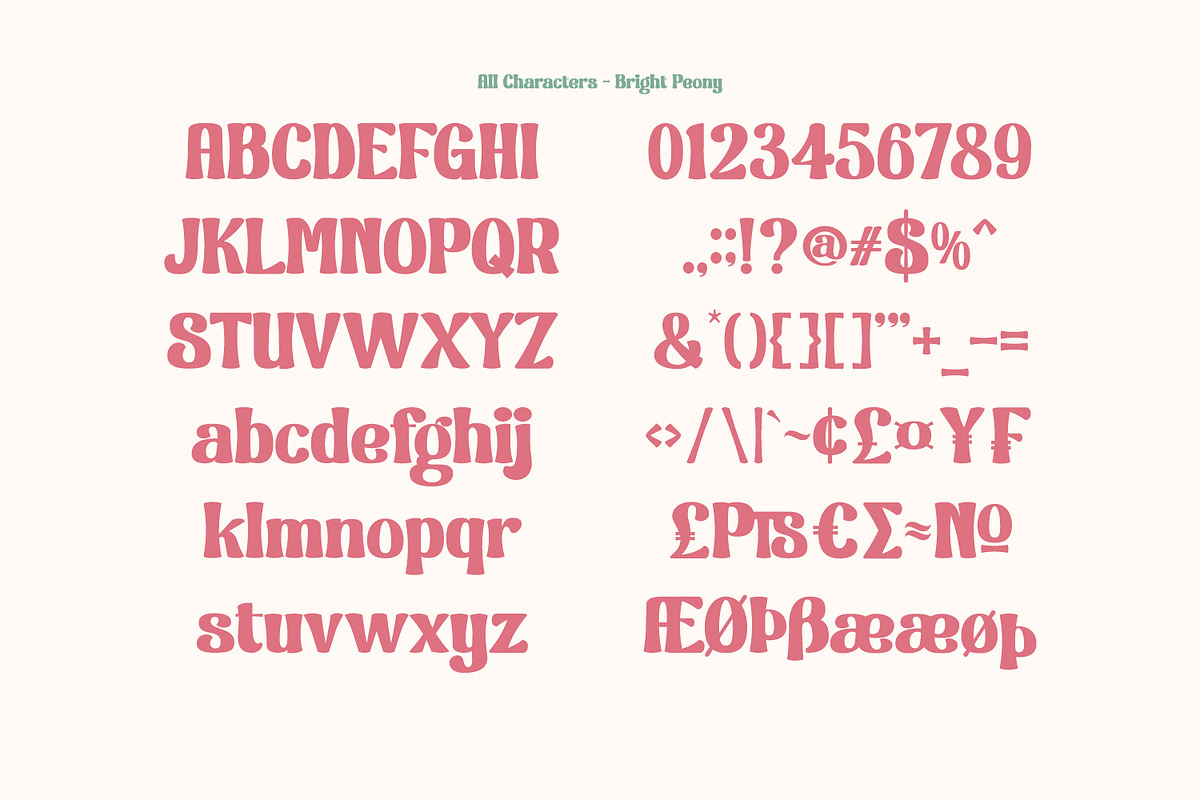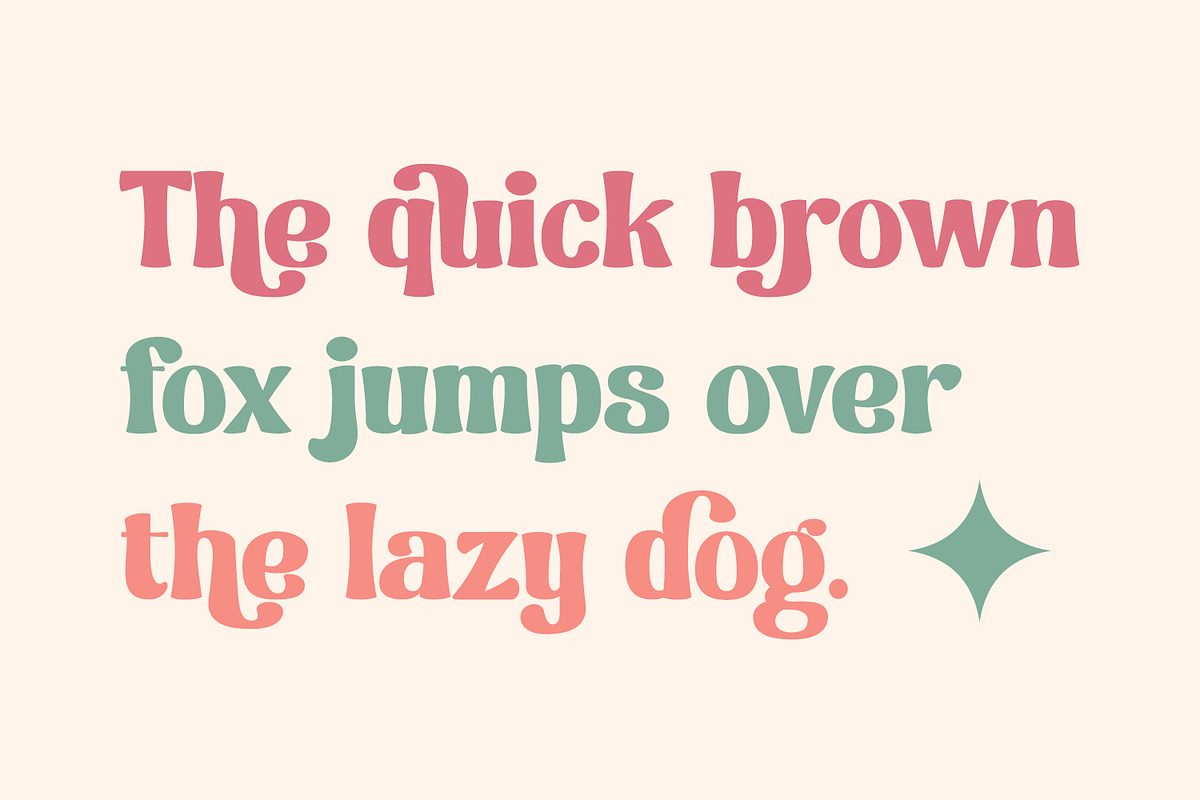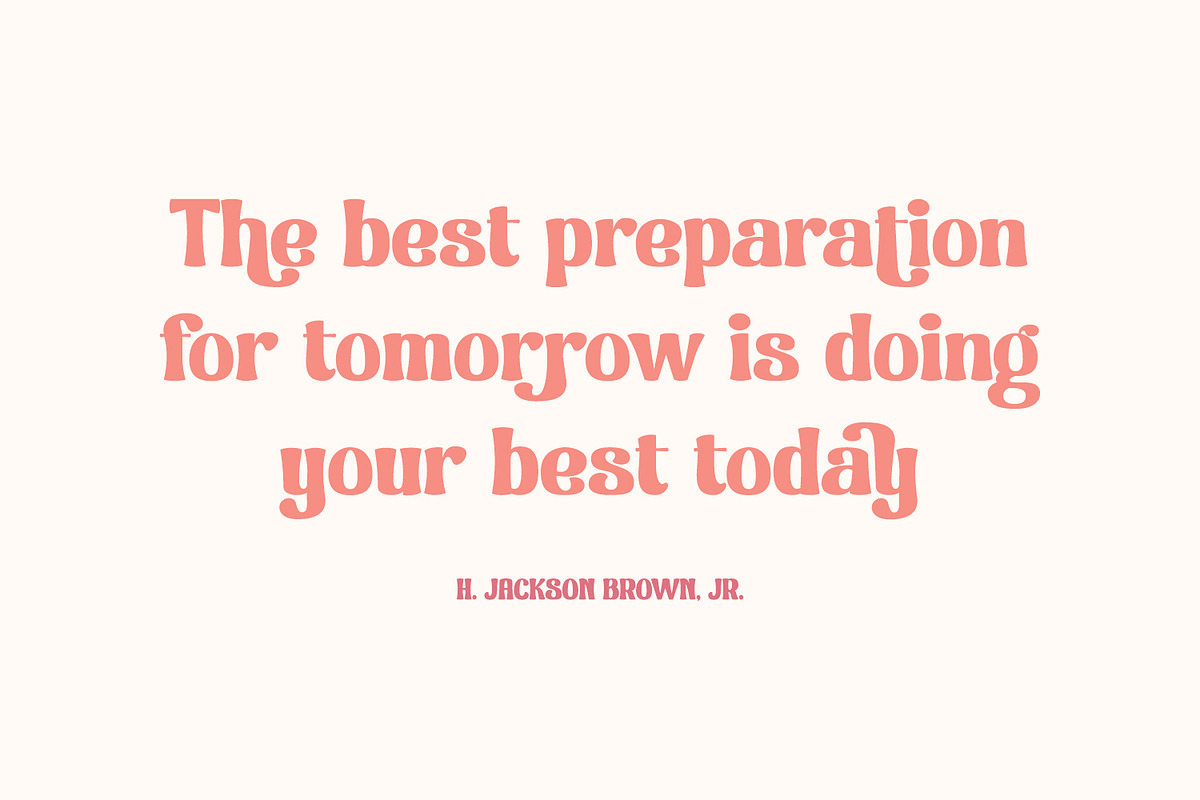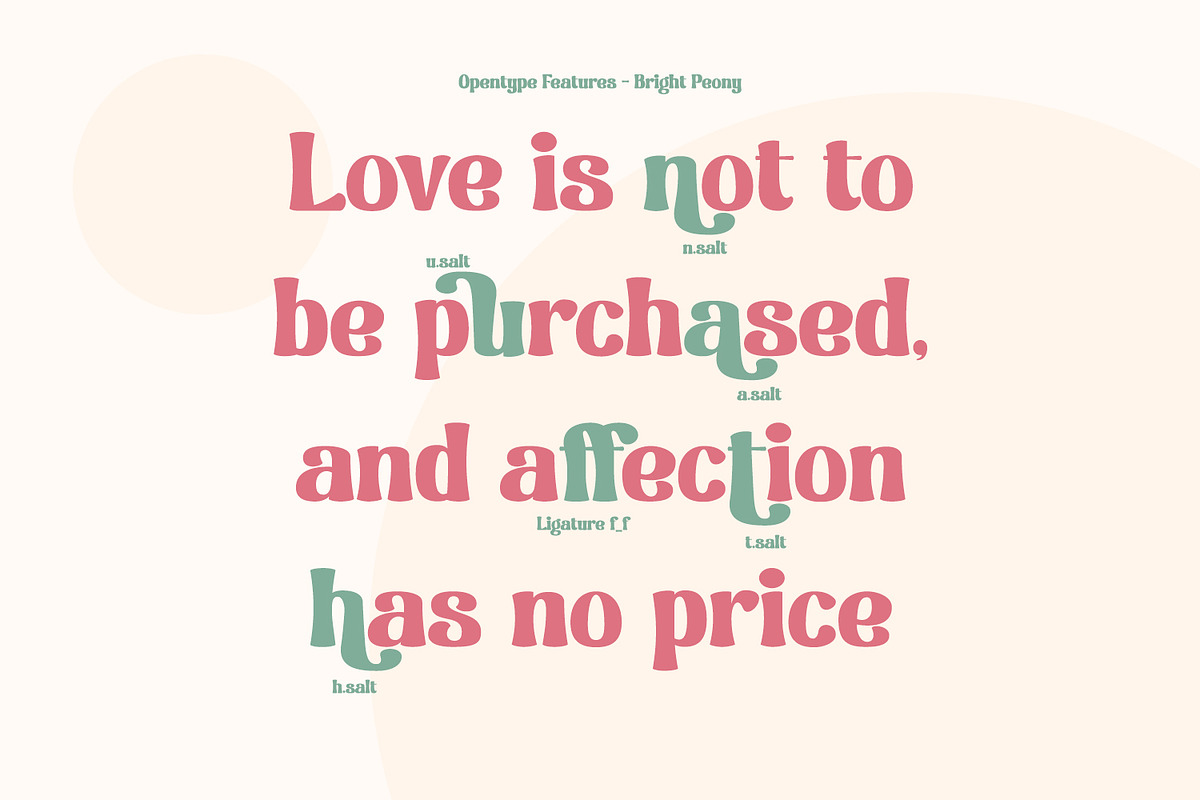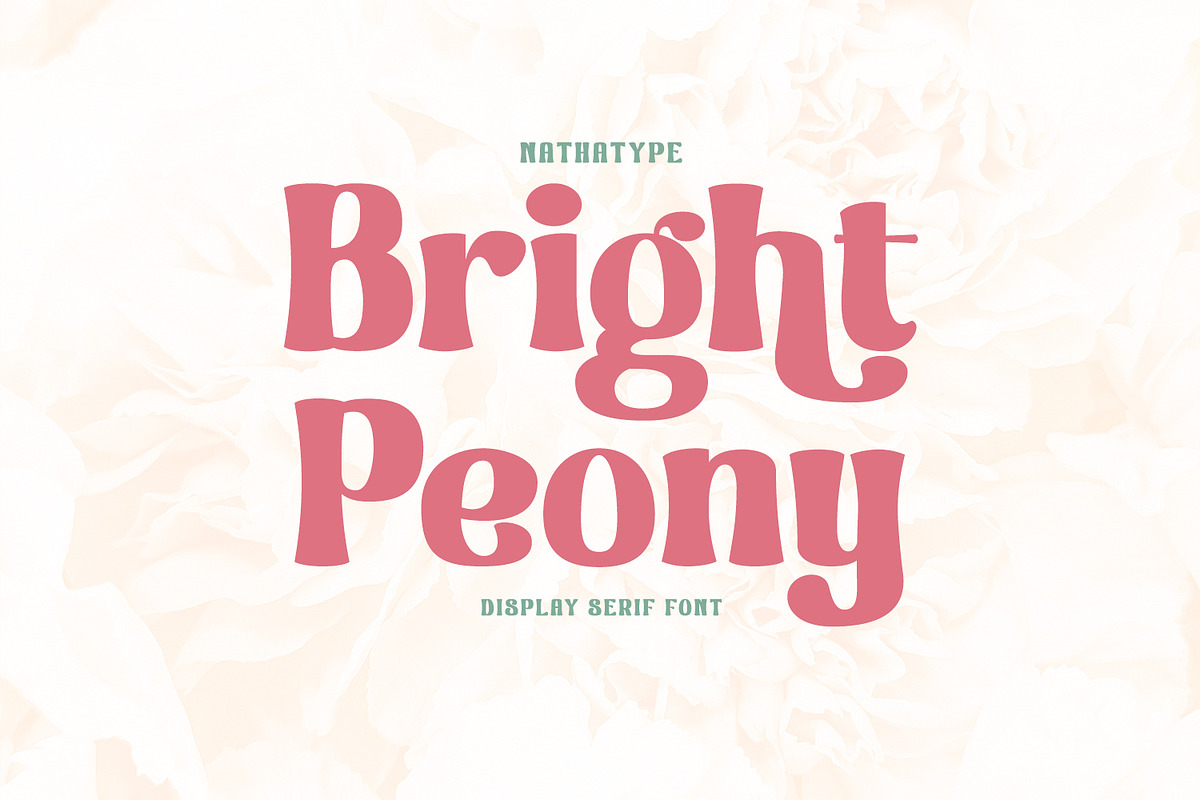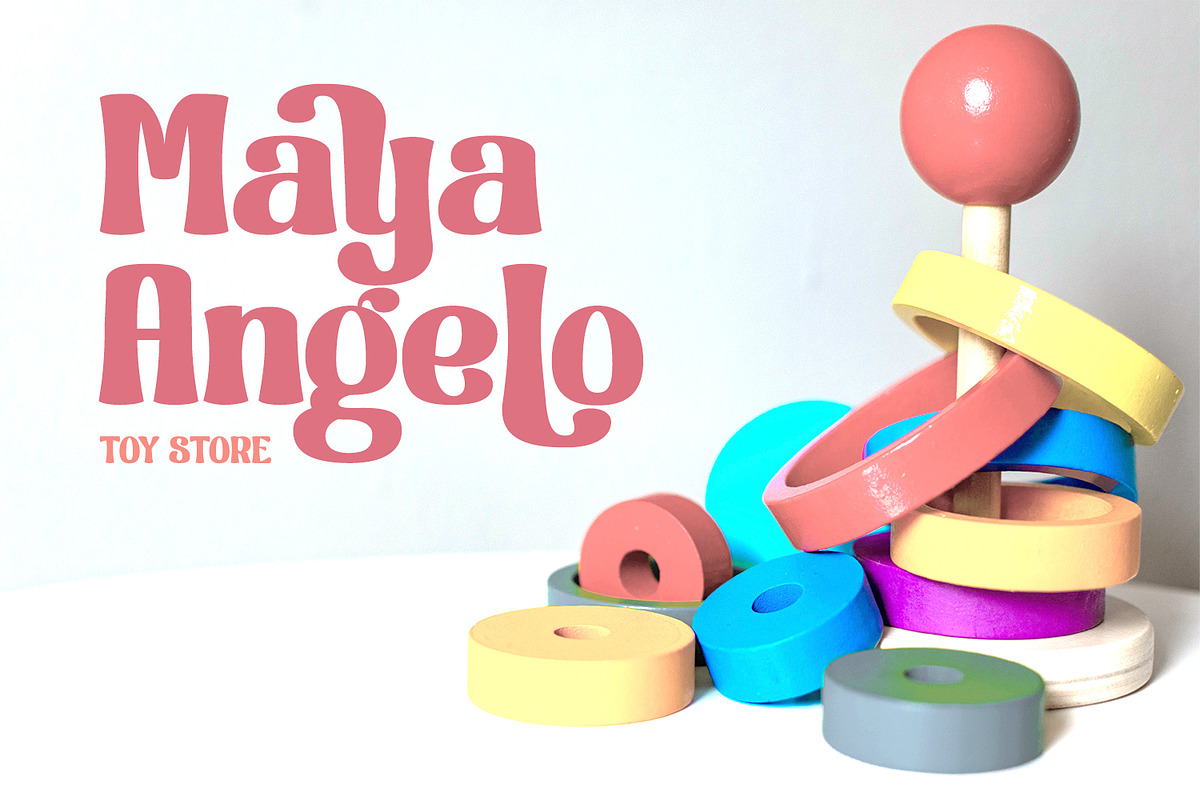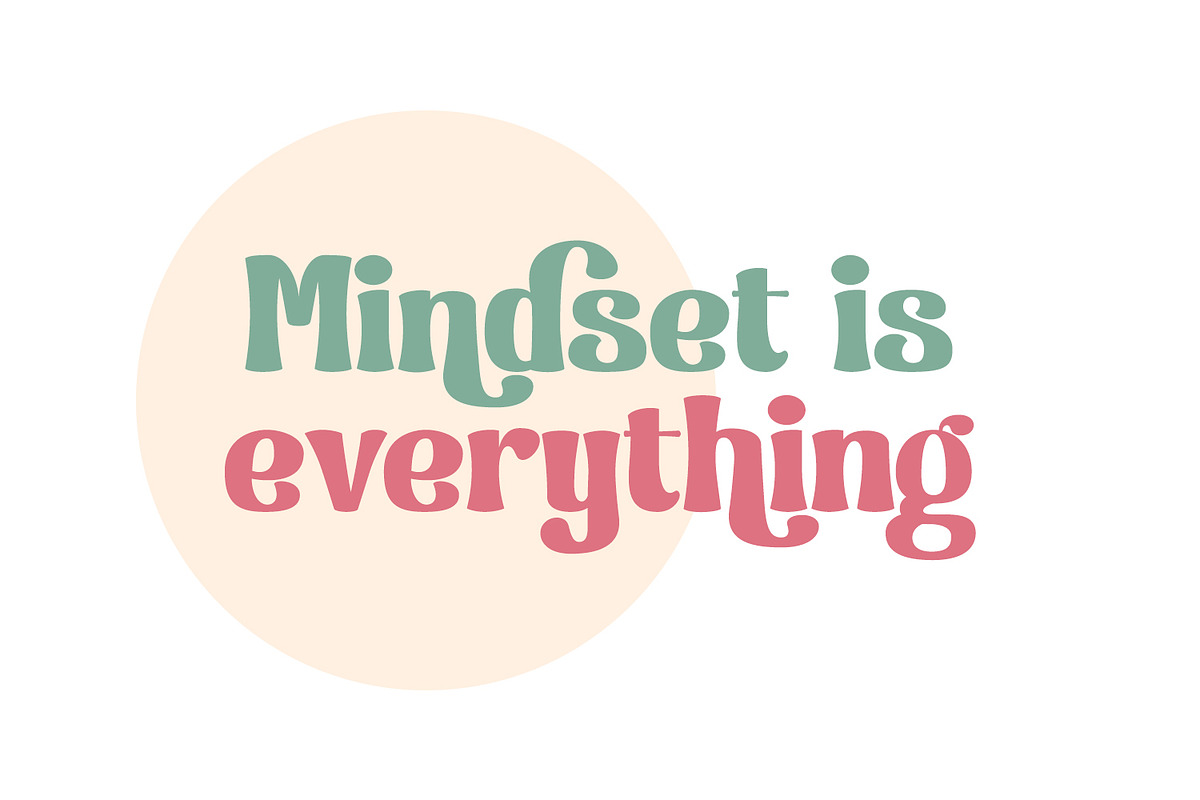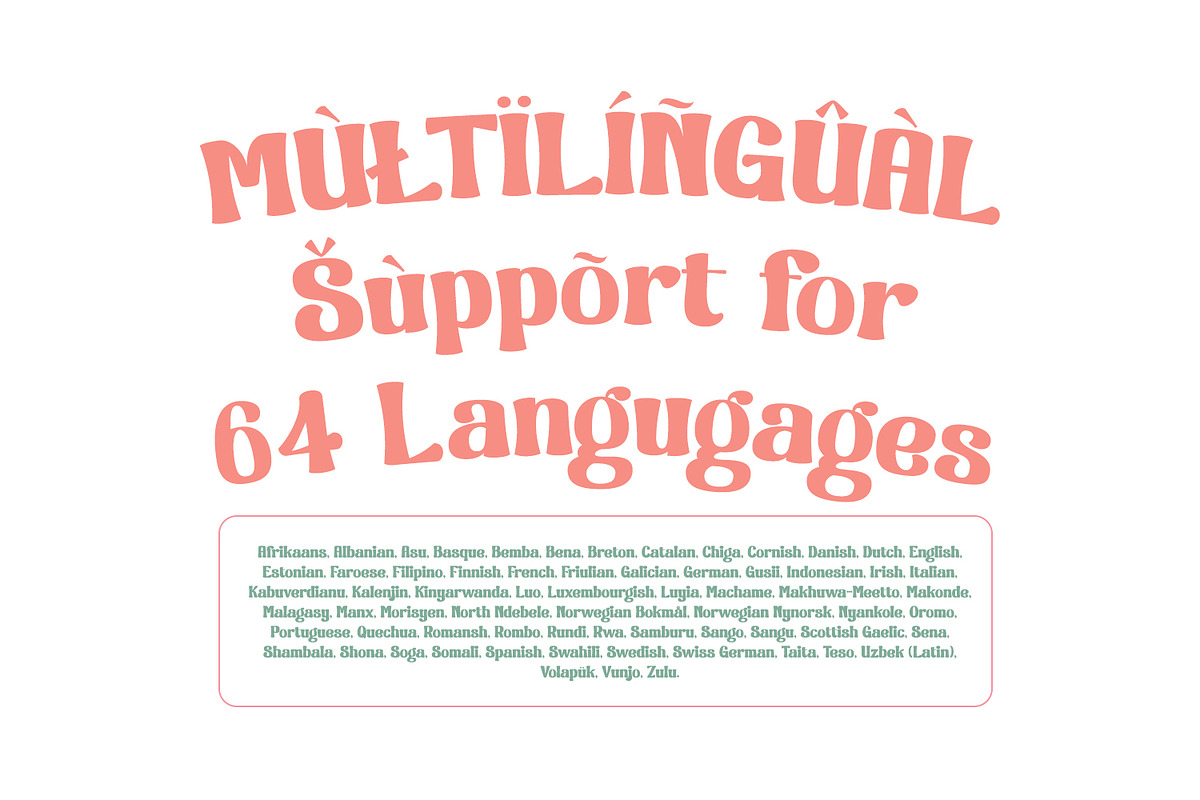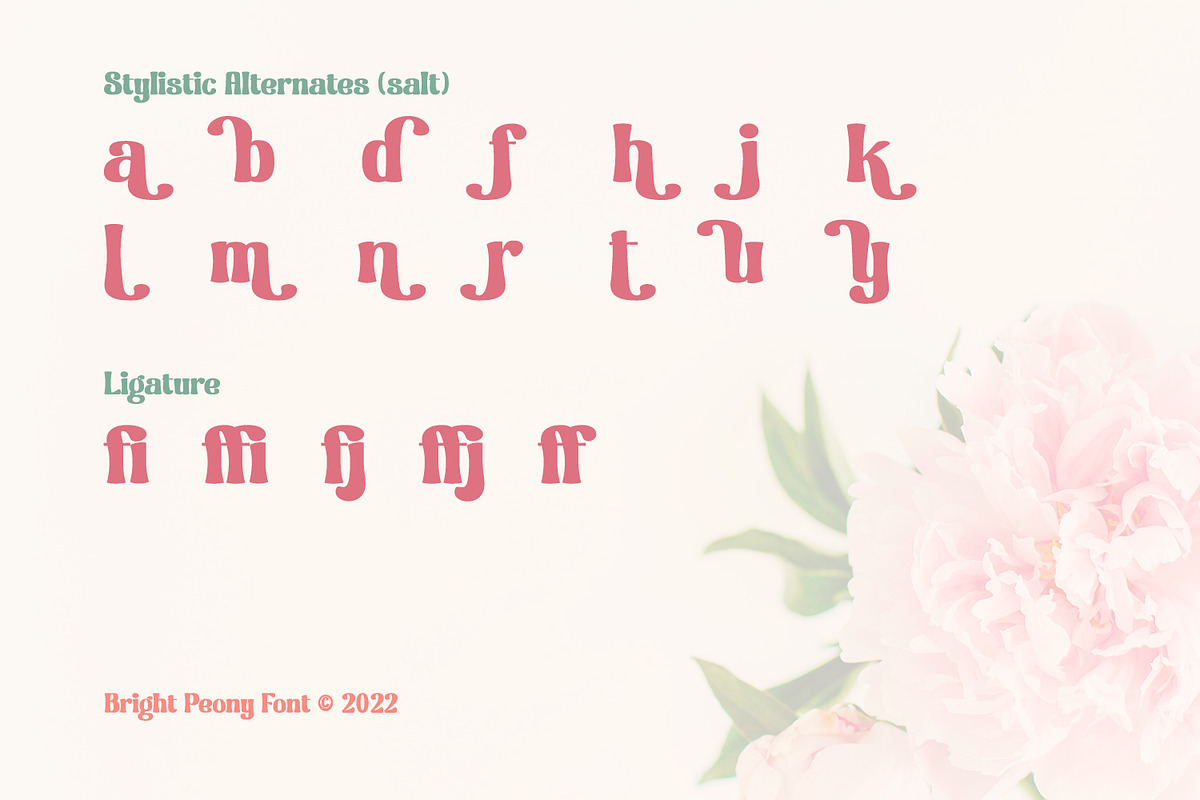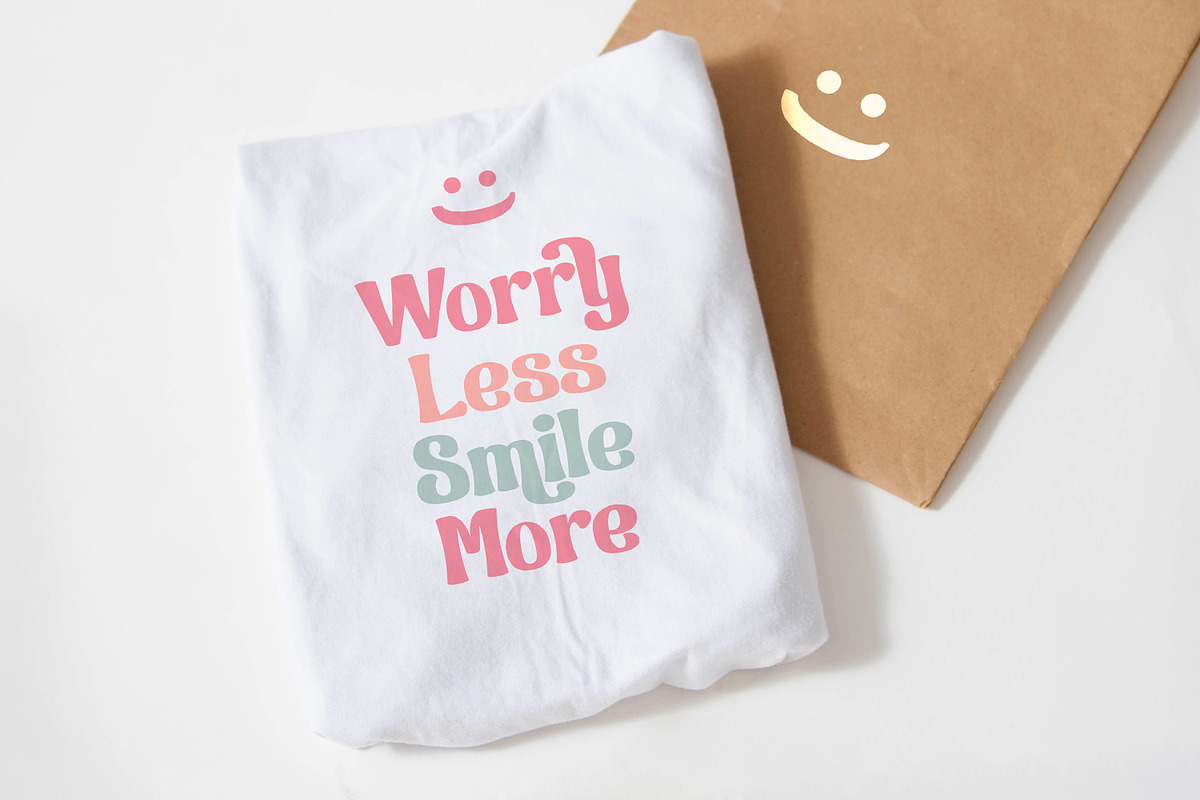
Bright Peony
Bright Peony is a lovely display serif font to show friendly, feminim, modern nuances. It is truly legible due to its high contrast and simply noticeable forms. Therefore, you can apply this font for any text sizes and lengths. You may also enjoy various features available in this font.
Bright Peony fits best for various design projects, such as posters, banners, logos, magazine covers, quotes, headings, printed products, invitations, name cards, merchandise, social media, etc. Find out more ways to use this font by taking a look at the font preview.